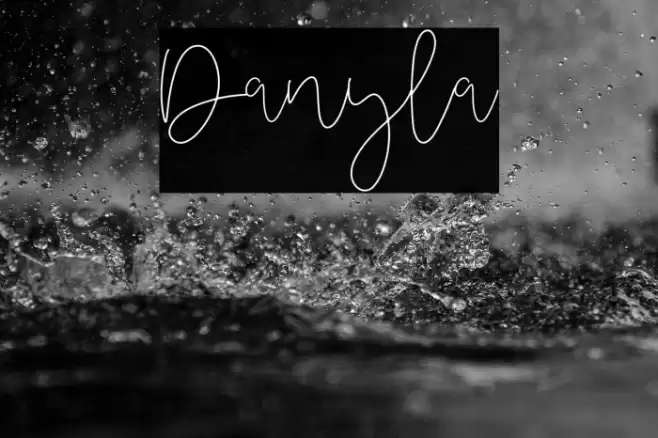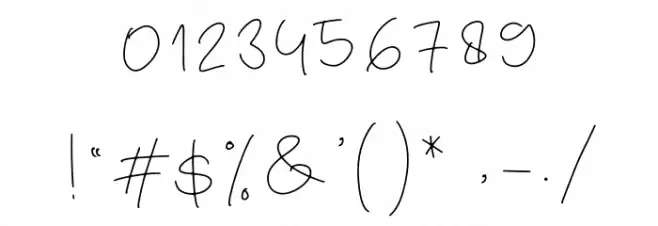
Danyla Font
Danyla Description
This font features a whimsical, handwritten style with a playful and casual appearance. The letters are characterized by their flowing, cursive forms and varying line thickness, giving it a dynamic and lively feel. The uppercase letters are tall and slightly irregular, while the lowercase letters maintain a consistent flow with loops and curves. The numbers and special characters complement the overall style, maintaining the same handwritten aesthetic. This font is ideal for projects that require a personal touch, such as invitations, greeting cards, or creative branding.
A playful, handwritten font with flowing cursive forms and dynamic line thickness from Uncategorized fonts.
- Proposed Projects: Ideal for invitations, greeting cards, creative branding, and personal projects.
- Use Case: Logos, Headlines, Invitations